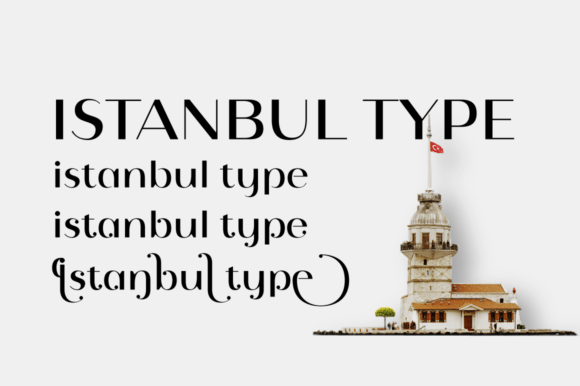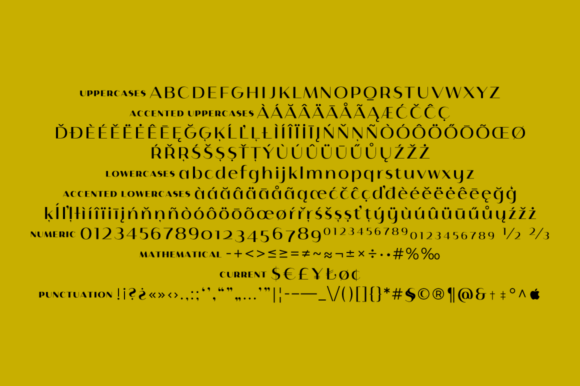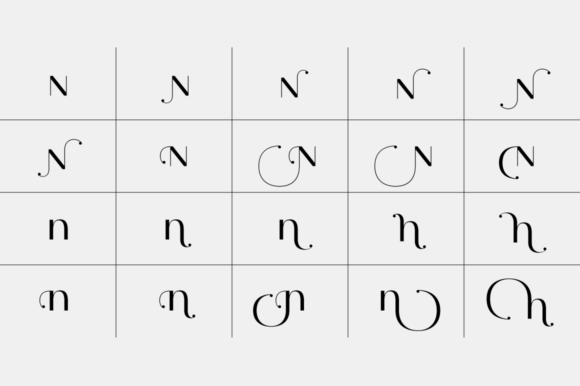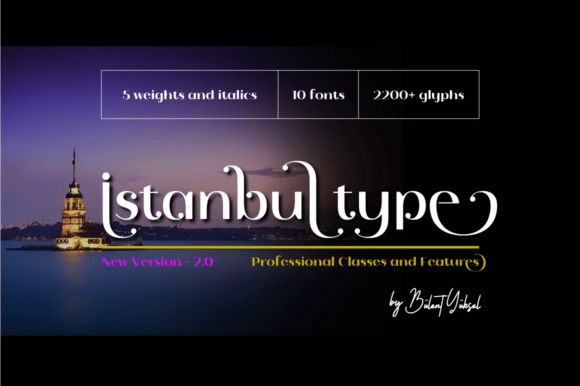
Introduction to Istanbul Type Font
Istanbul Type is a minimal and neat sans serif font.
Key Features of Istanbul Type Font
Why Choose Istanbul Type Font?